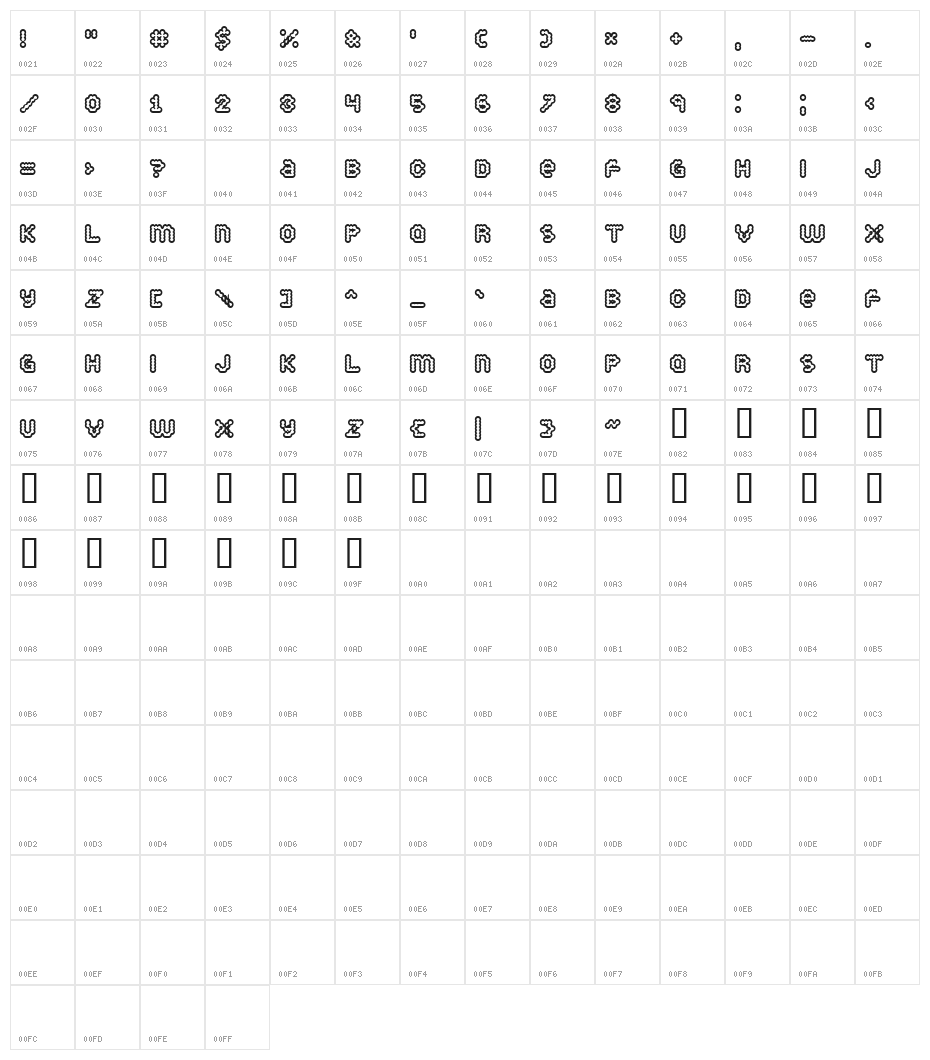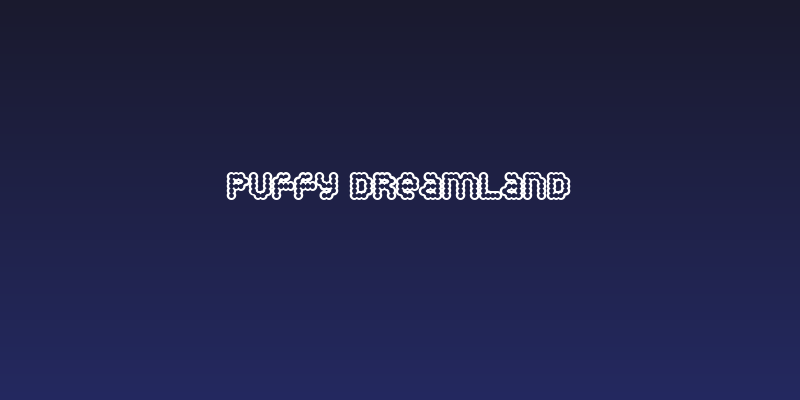
Puffy Dreamland Font
Puffy Dreamland Description
This playful and whimsical font features a unique bubble-like design, where each character is composed of interconnected circles, creating a puffy and dreamlike appearance. The font is characterized by its rounded edges and consistent circular motif, giving it a soft and approachable feel. The uniformity in the design of both uppercase and lowercase letters, as well as numbers and special characters, ensures a cohesive look throughout. This font's distinct style makes it stand out, offering a fun and creative option for various design projects.